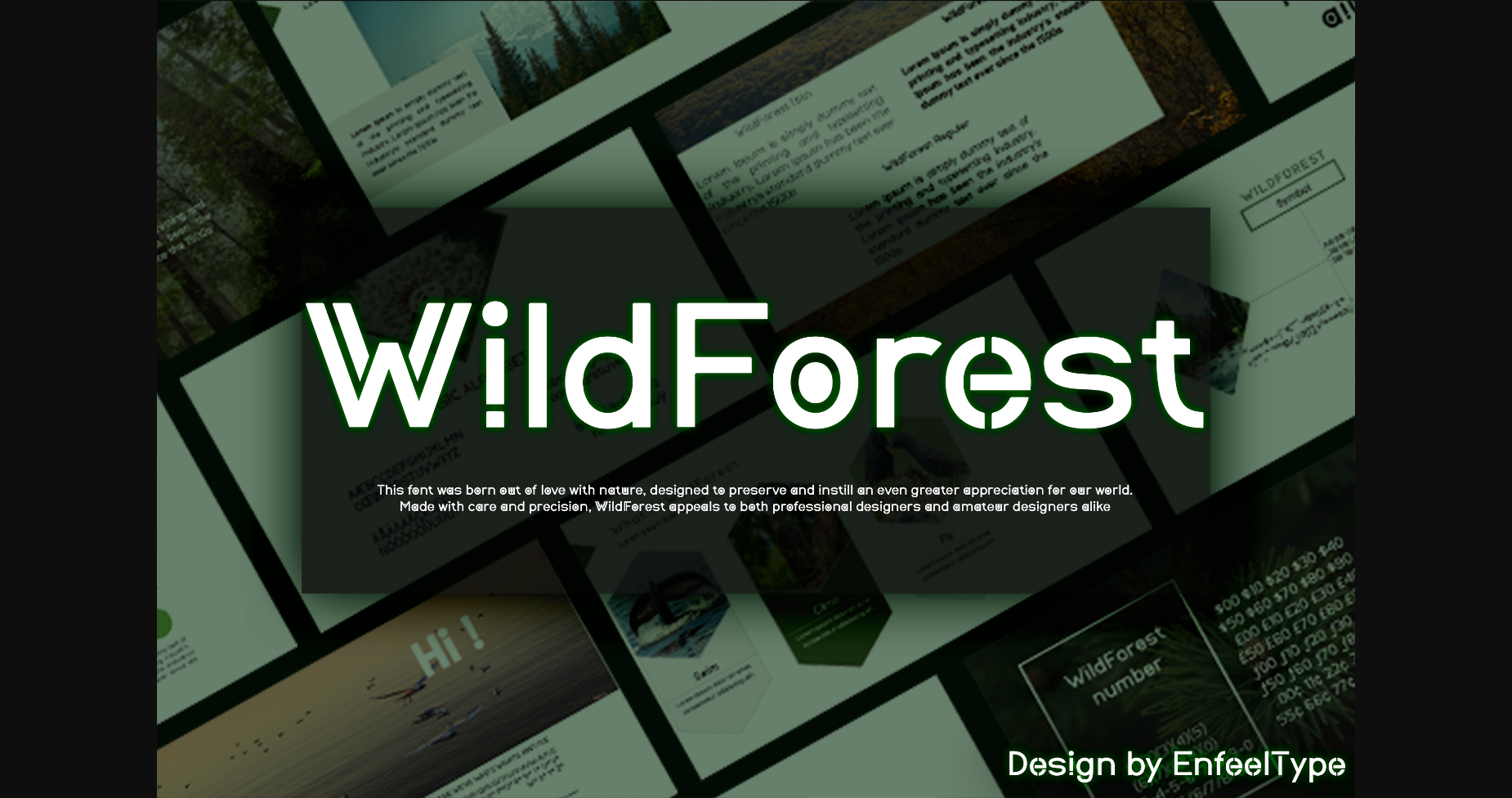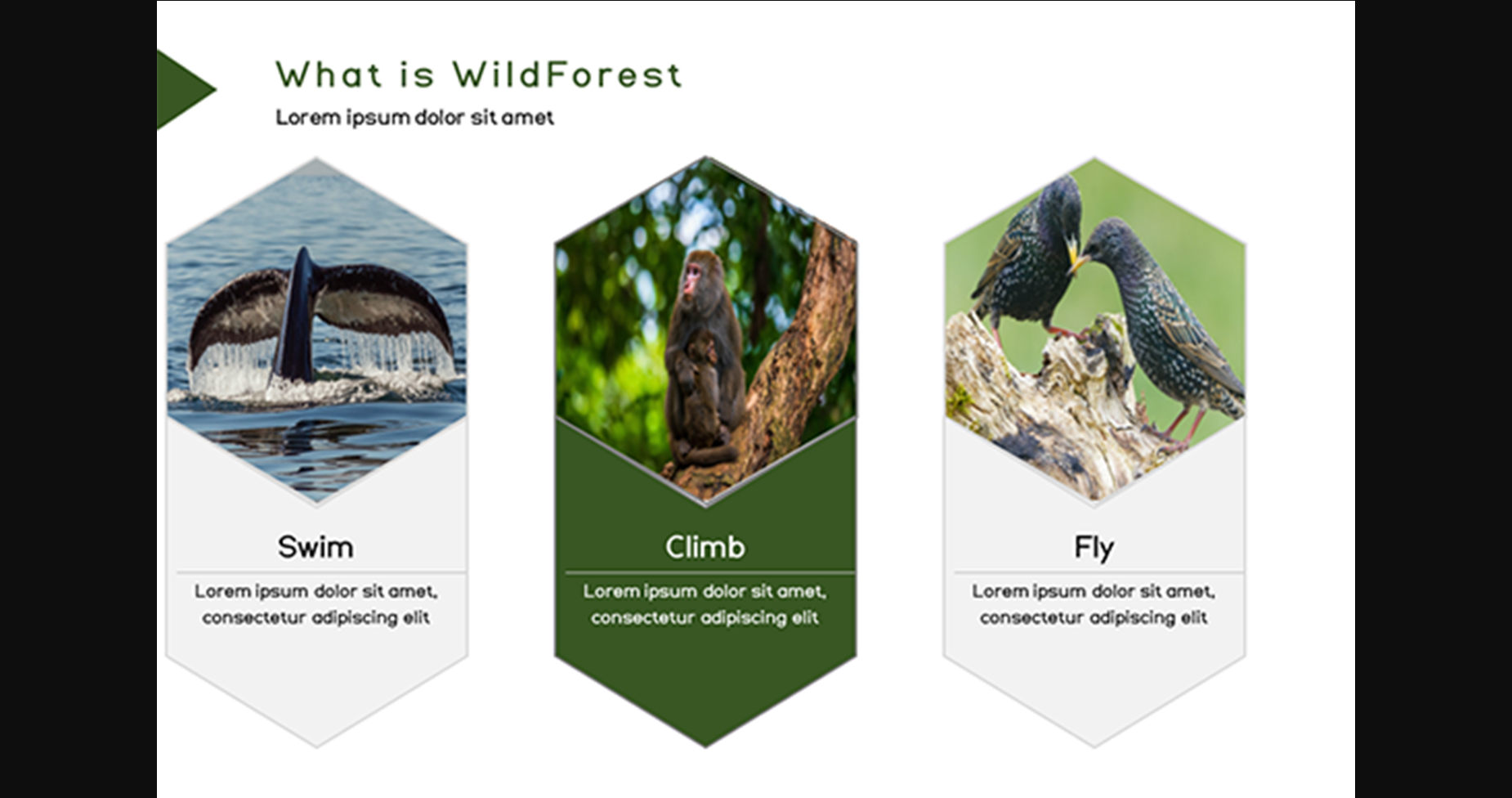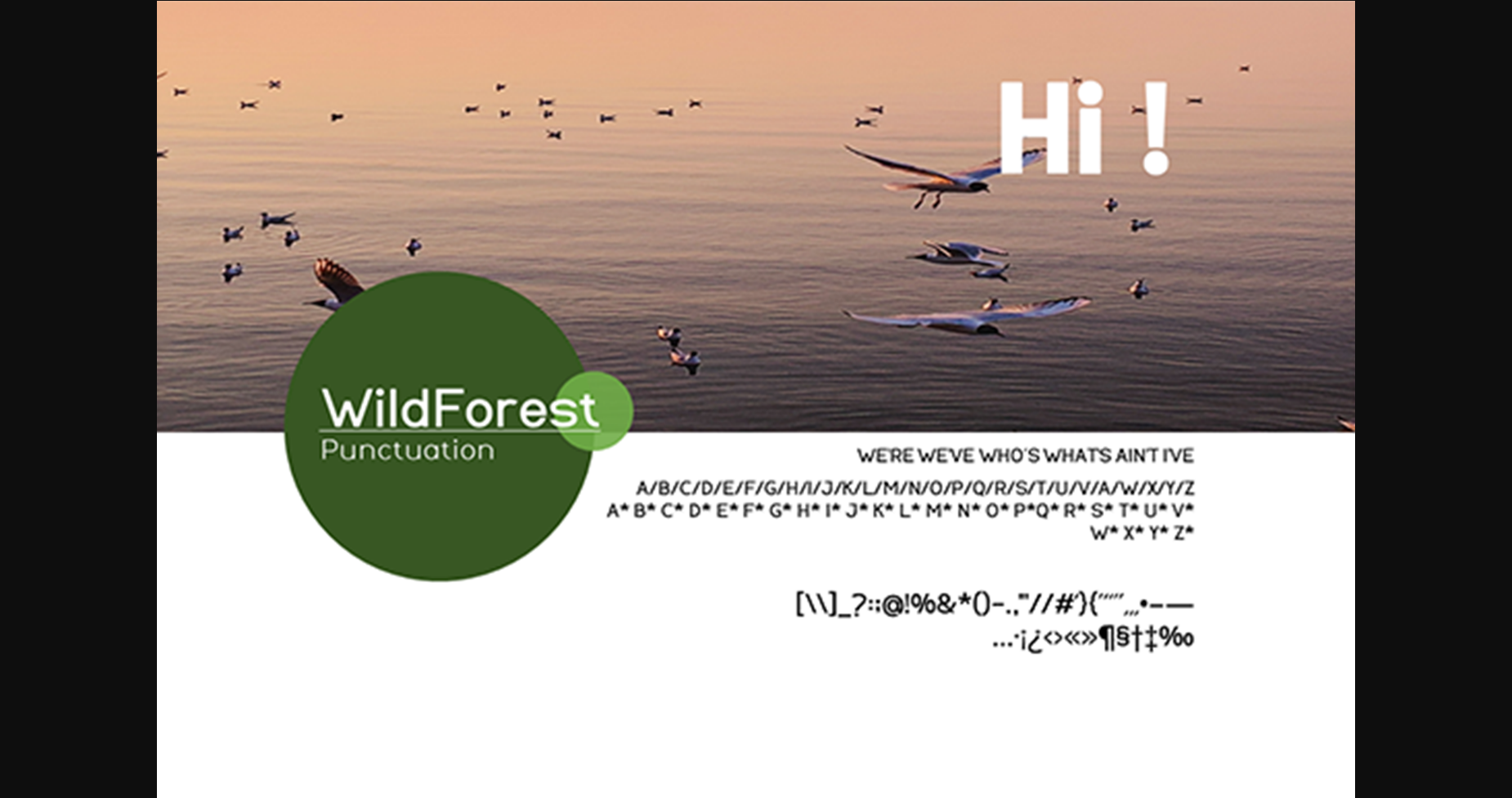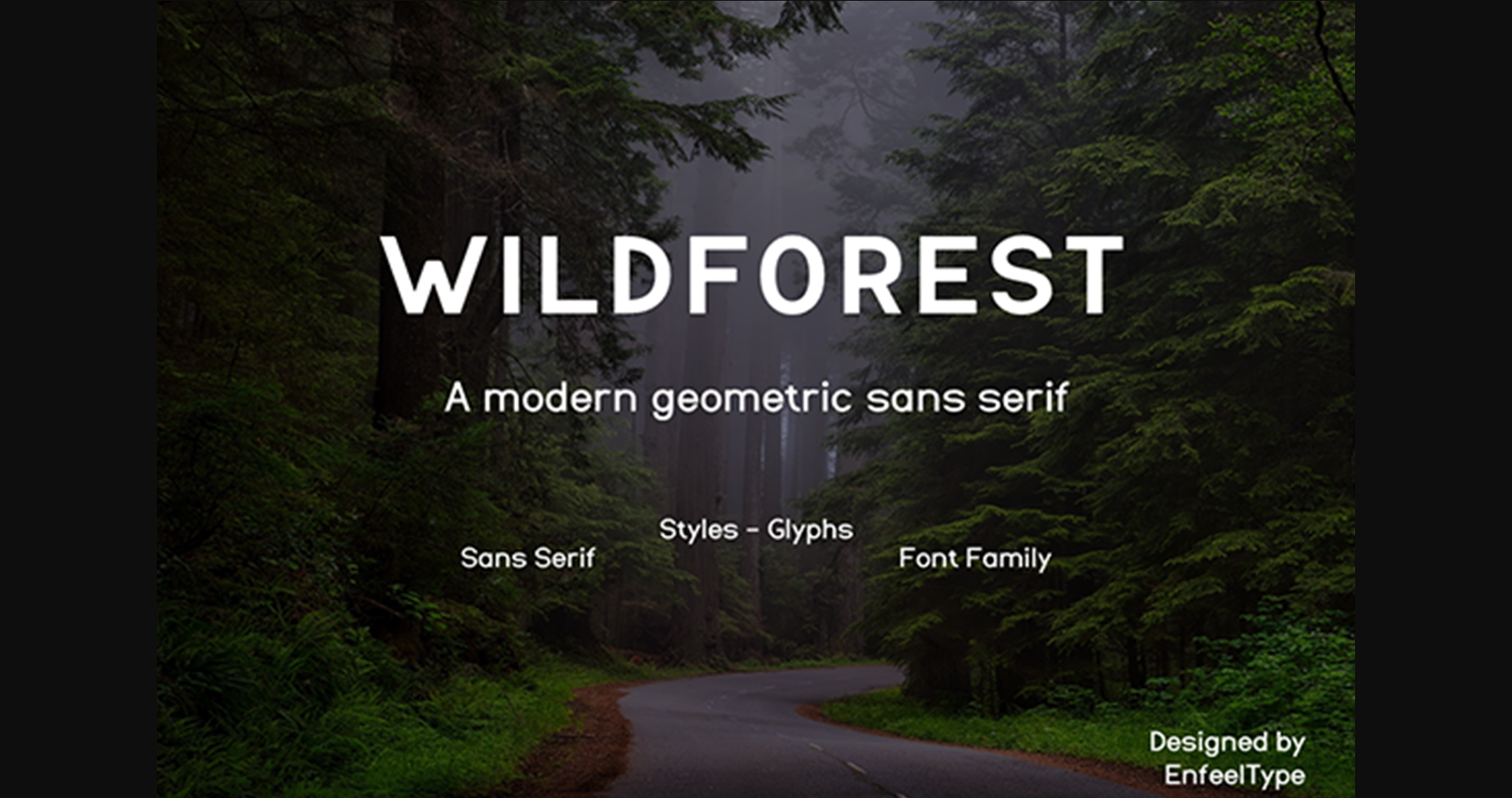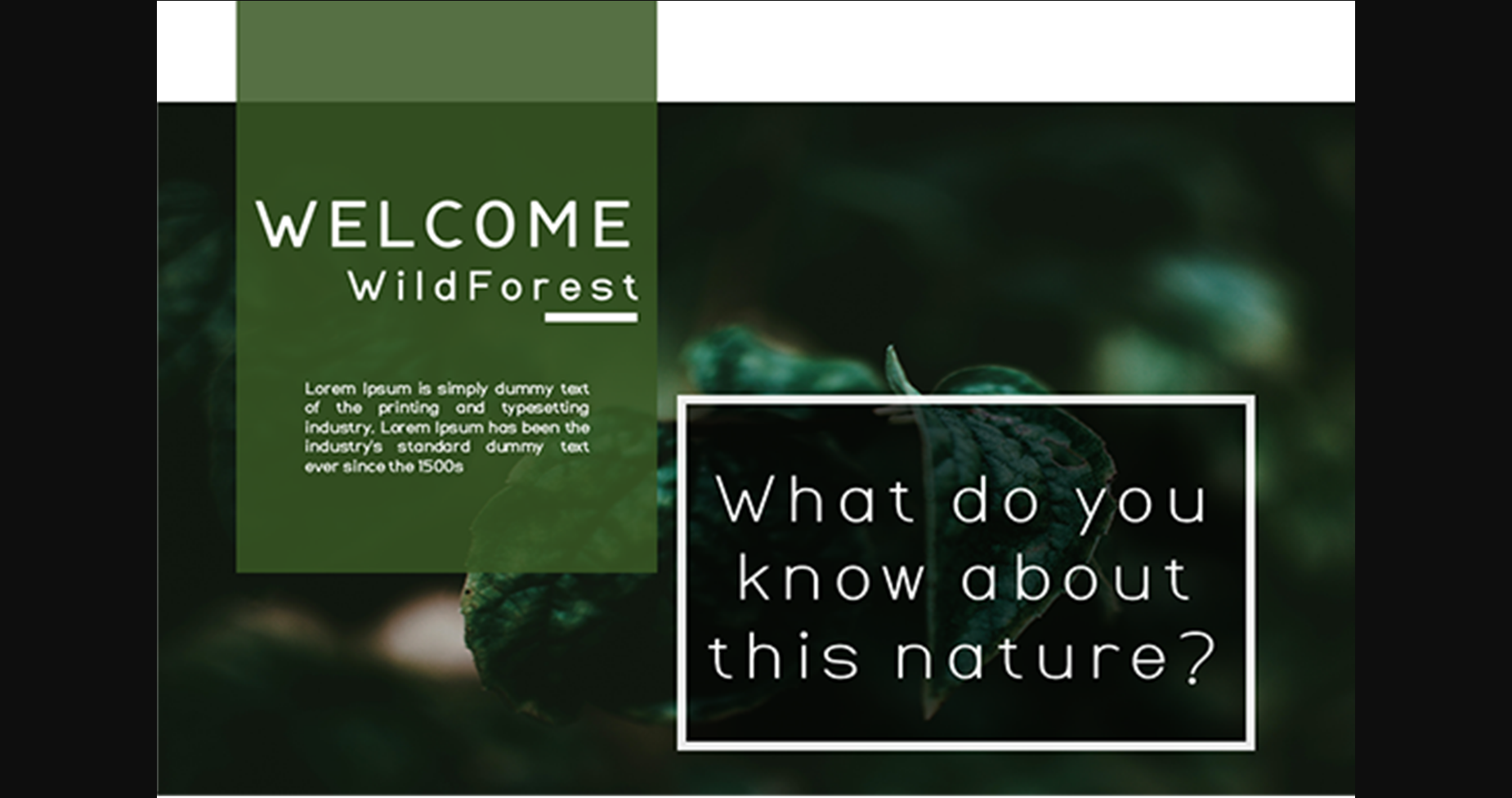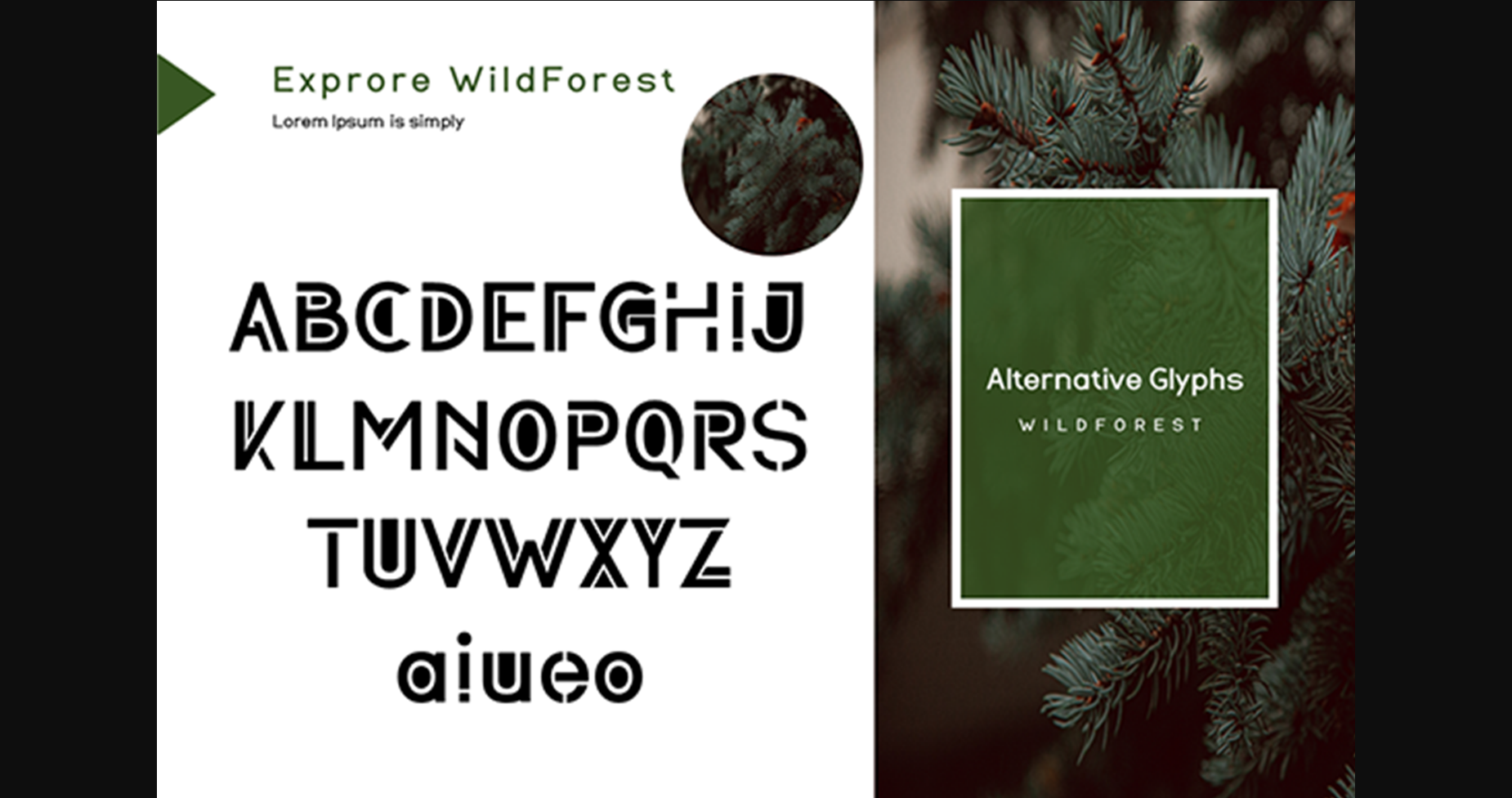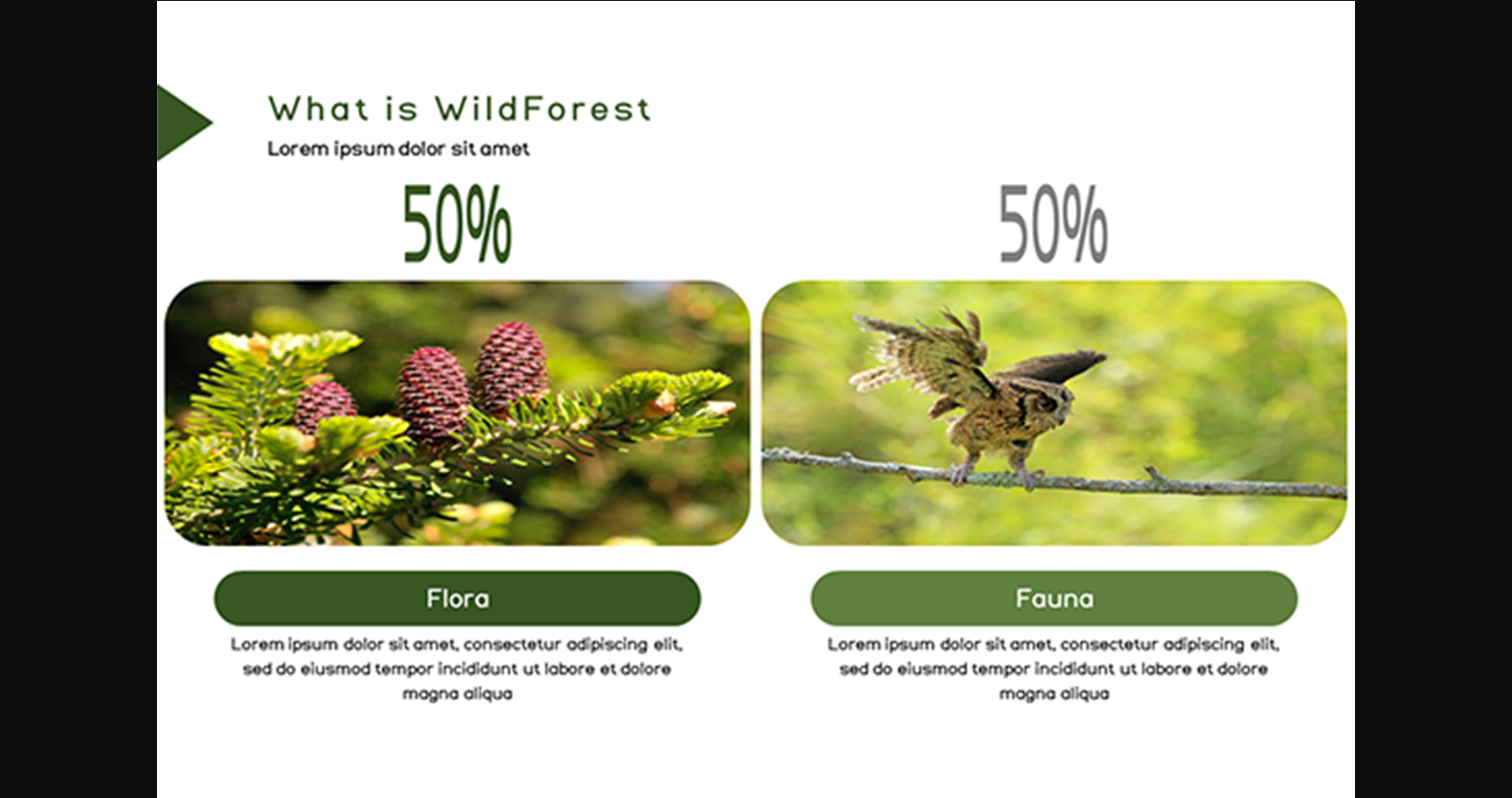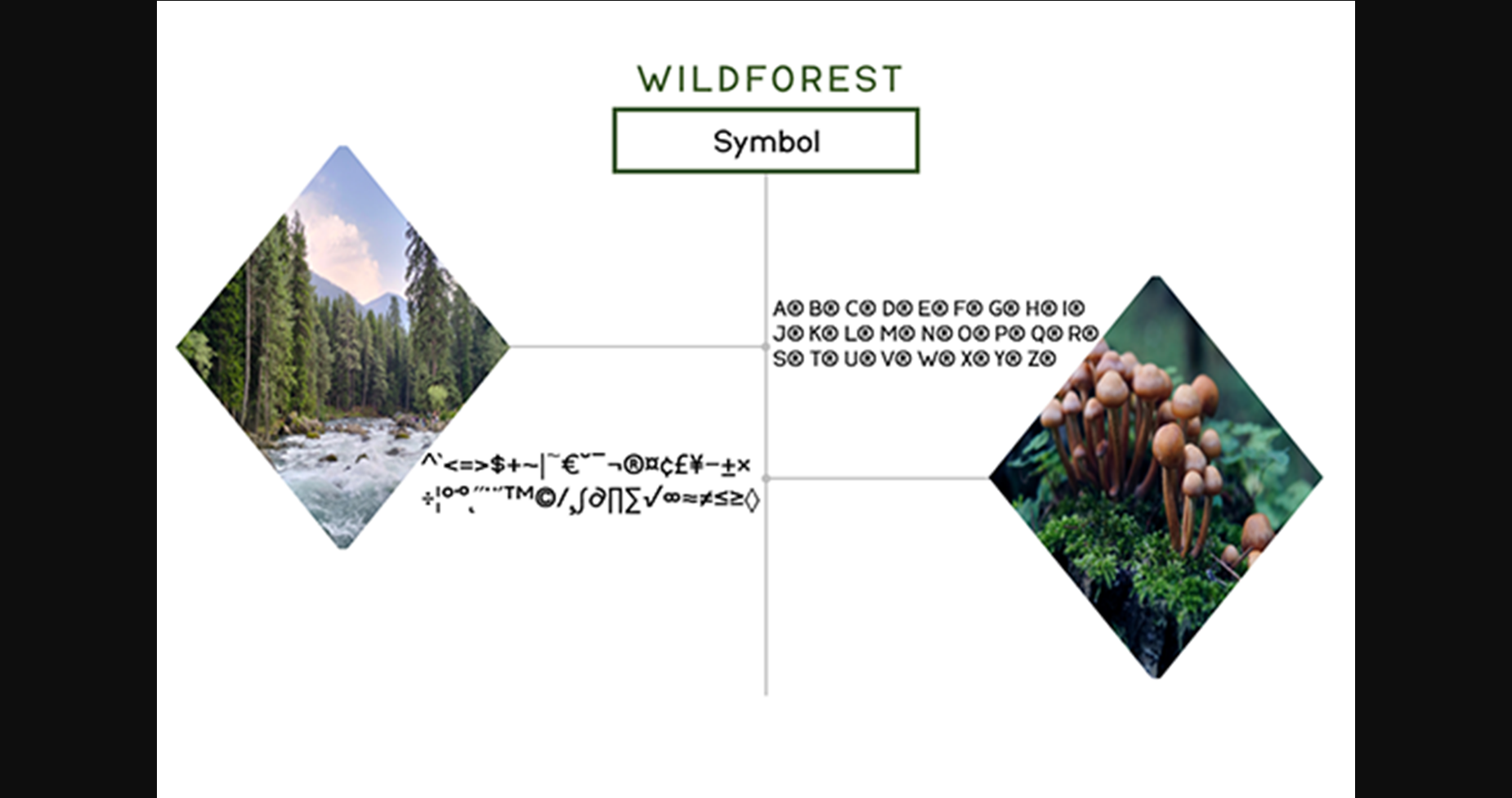
Wildforest Font
About Wildforest Font
This font was born out of love with nature, designed to preserve and instill an even greater appreciation for our world. WildForest is a modern typeface born from the wild. This font was born out of love with this nature, and its intention is to capture the spark of something beautiful, yet wild and full of life.
This font was designed with a careful eye on the details and has accents that recall the spirit of nature, made in a style that will be loved by both professionals and amateurs. Made with care and precision, WildForest appeals to both professional designers and amateur designers alike. Worthy of any article or design, WildForest embodies a typeface that is truly unique.